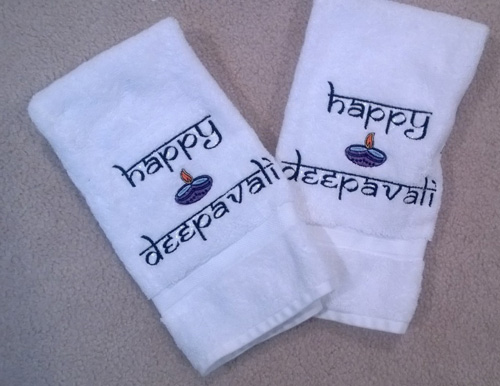
Samarkan Alphabet
This exotic alphabet is named for Samarkand, the capital of Tamerlane in Uzbekistan. It is one of the oldest cities in the world and is noted for its central position on the Silk Road between China and the West.
The Samarkan font makes English look like Devanagari, an alphabet of India and Nepal that lacks letter cases, and is recognizable by a distinctive horizontal line running along the tops of the letters.
A great choice when you need a truly exotic alphabet!